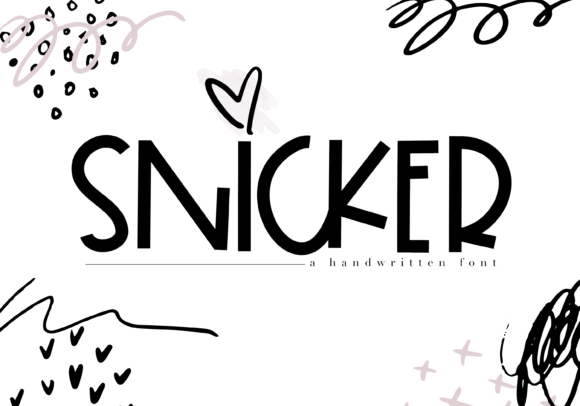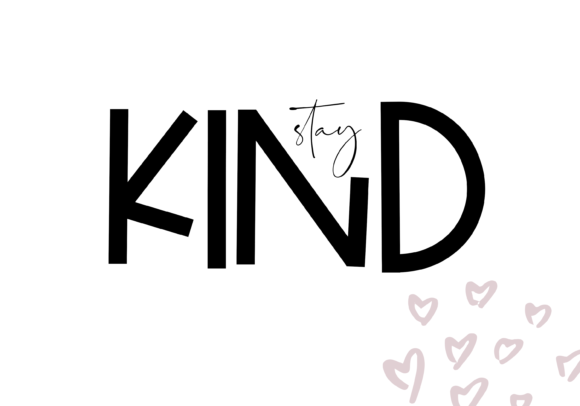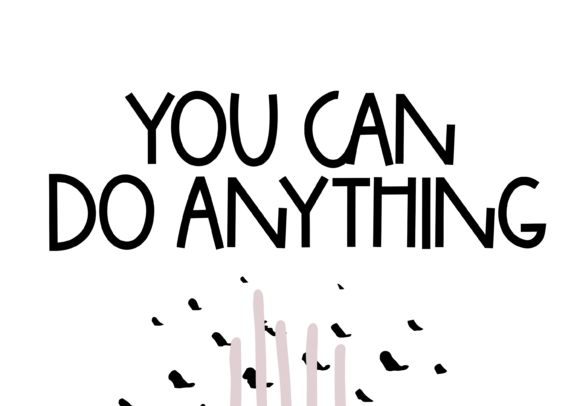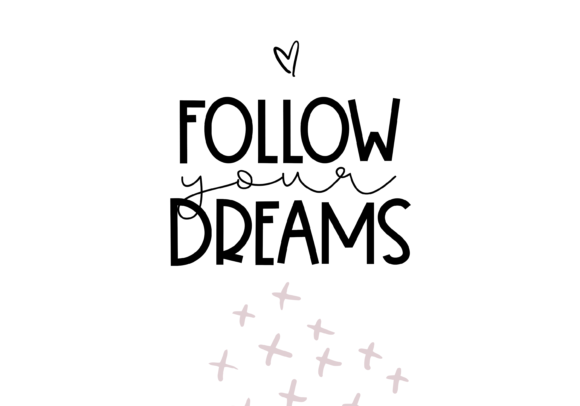
Snicker Font
About the Snicker Font
Unleash your creativity with Snicker Font, a versatile font perfect for a wide range of applications. Snicker is a cute and charming display font with a lovely feel. Get inspired by its unique quirk!